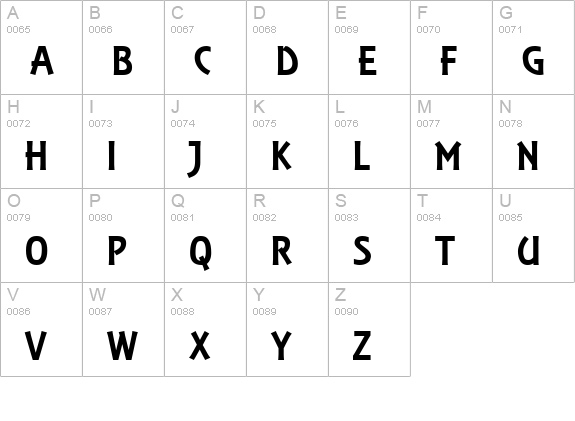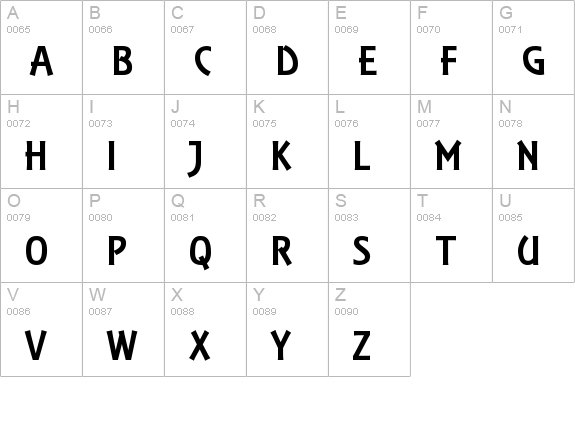
Estelle Black SF Font Details
Estelle Black SF is a maximum-weight, dramatic variant in the Estelle typeface family \xE2\x80\x94 well suited to maximum-impact headlines, posters, and packaging.
Estelle Black SF font is a modern and sleek typeface that exudes sophistication and elegance. With its bold and eye-catching design, this font is perfect for making a statement in any project. Featuring sharp edges and a contemporary style, Estelle Black SF font is ideal for branding, headlines, posters, and more. The best part about Estelle Black SF font is that it is completely free to download at FontsMarket.com. This means that you can easily access this beautiful typeface and use it in your designs without any cost. Whether you are a designer, student, or hobbyist, Estelle Black SF font is a versatile and attractive option that will elevate your projects to the next level. Don't miss out on this amazing font - download it for free today and start creating stunning designs!